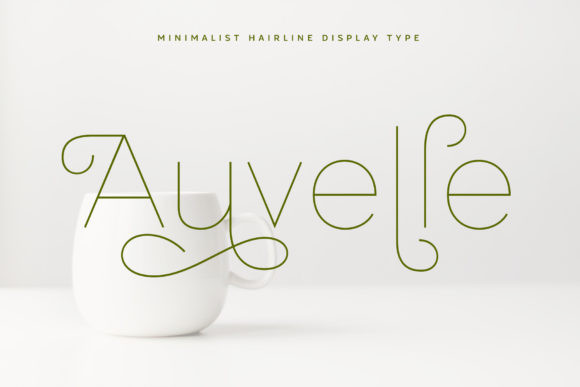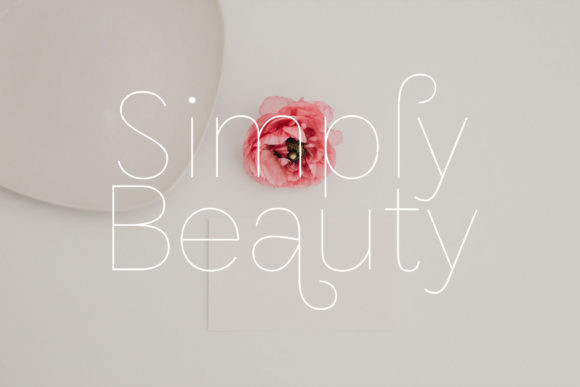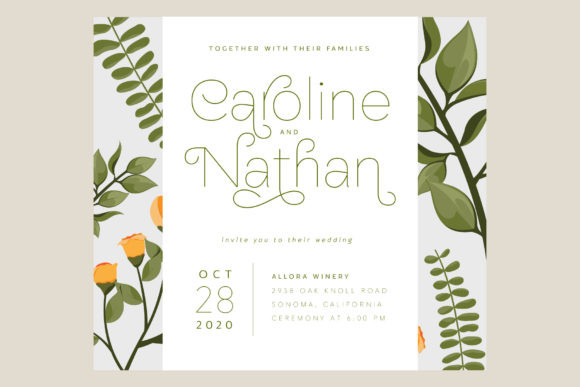
Auvelle Font
Auvelle is a beautiful, elegant and thin display font. Incredibly trendy and versatile, this font will instantly become your favorite choice. It can be used for various purposes such as logos, wedding invitations, headings, t-shirts, letterhead, signage, labels, news, posters, badges and so much more.